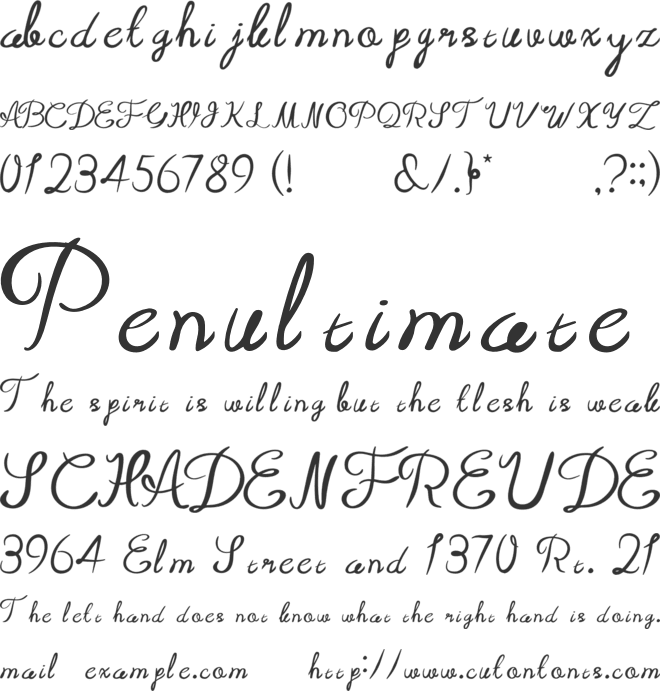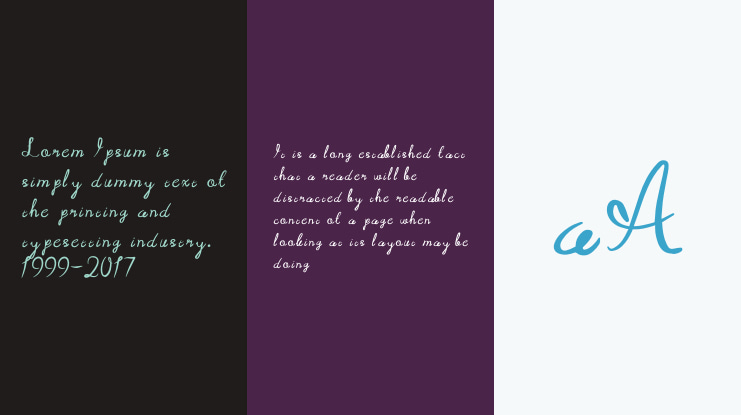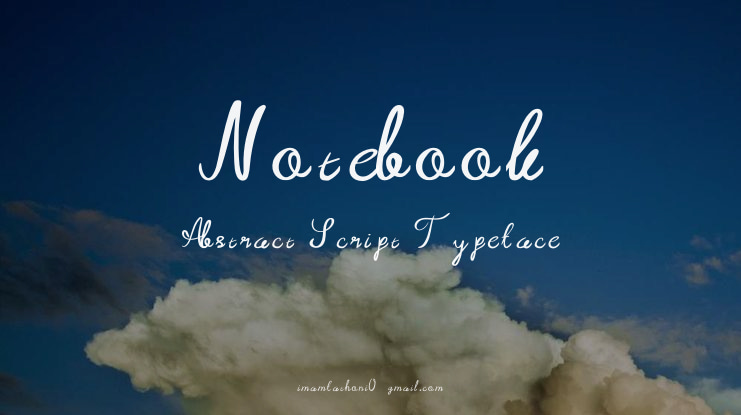
Notebook Abstract Script is a flowing connected script with graceful handwritten curves and an elegant rhythm. Its natural, versatile letterforms suit wedding stationery, logos, quotes, and branding with a personal touch. The smooth, refined strokes carry a timeless, handcrafted charm.